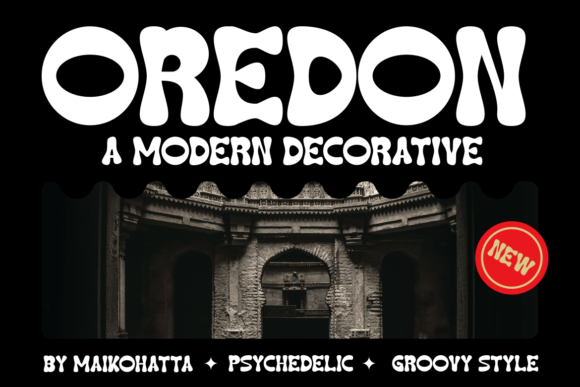
Introducing Oredon Font, a stunning addition to our display font collection! Created by the talented maikofarazhatta, this font is specifically designed for LED displays, making it the perfect choice for all your digital signage needs.
But Oredon Font is much more than just a practical tool. It exudes energy and abstract characteristics, injecting a contemporary design perspective into your projects. With its captivating visual experience, this font will grab the attention of your audience and leave a lasting impression.
One of the standout features of Oredon Font is its psychedelic style. This typeface combines artistic elements, vibrant colors, and eye-catching designs to create a truly unique and expressive look. Whether you're working on graphic designs, posters, art pieces, or promotional materials, Oredon Font will help you achieve that striking, experimental appearance you desire.
Designers who crave adventure and love to push creative boundaries will find Oredon Font to be an invaluable tool. It allows for endless experimentation and adds a sense of excitement to any project. Let your imagination run wild and watch as this font brings your ideas to life in ways you never thought possible.
Don't settle for ordinary fonts that lack personality. With Oredon Font, you can elevate your designs and create something truly extraordinary. Its contemporary design perspective and abstract characteristics will set you apart from the crowd, leaving a lasting impression on your audience.